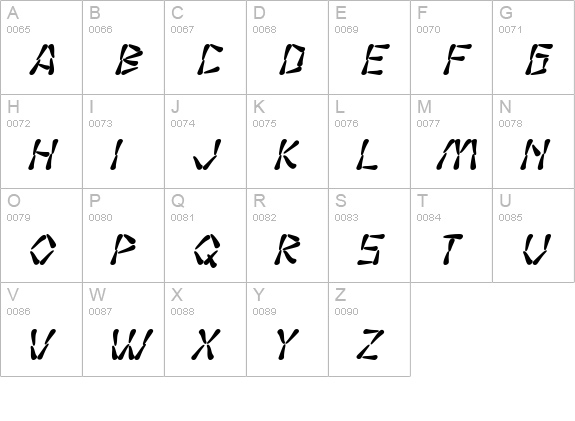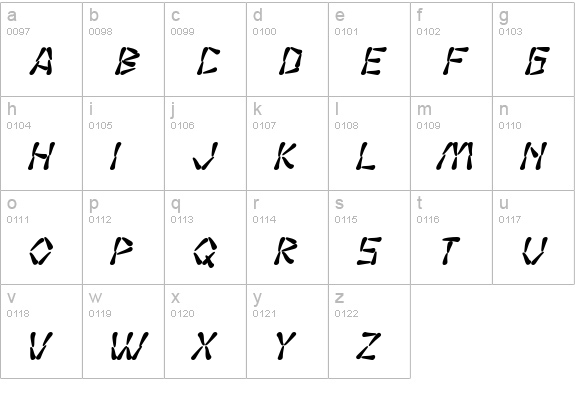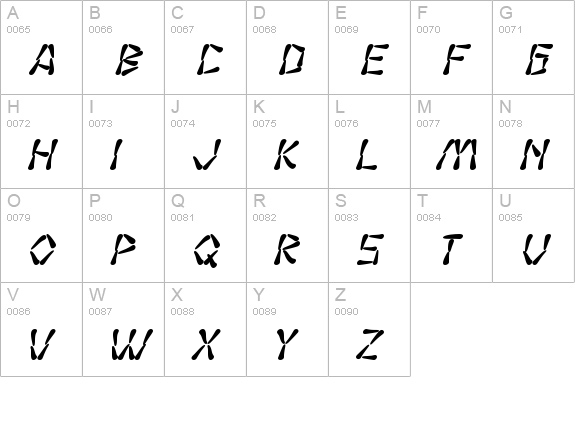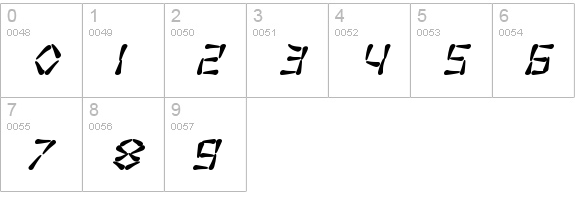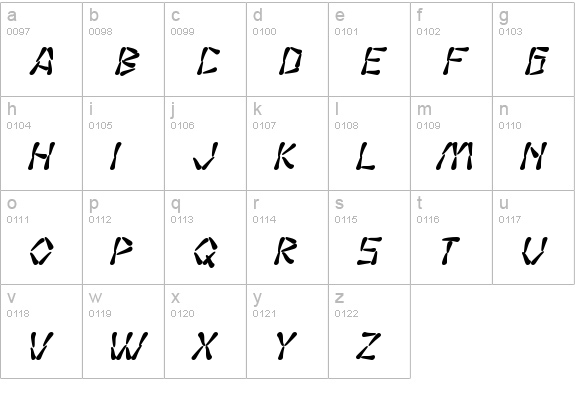
SF Wasabi Bold Italic Font Details
SF Wasabi Bold Italic is a strong, high-contrast, italic variant in the SF typeface family \xE2\x80\x94 well suited to headlines, attention-grabbing titles, and strong calls-to-action.
Introducing the captivating SF Wasabi Bold Italic font, a bold and daring typeface that exudes confidence and modernity. This font is perfect for those who want to make a statement with their designs, whether it be for branding, advertising, or any creative project that requires a touch of edginess. With its striking bold strokes and slanted italics, SF Wasabi Bold Italic commands attention and adds a sense of energy to any composition. Its distinct and unique letterforms are carefully crafted to create a visually impactful experience, making it an ideal choice for headlines, logos, and attention-grabbing titles. But what sets SF Wasabi Bold Italic apart is not just its unrivaled aesthetics; it's also the fact that it is offered to you completely free of charge. Yes, you read that right – this remarkable font is freely available to download at FontsMarket.com, allowing you to effortlessly access and utilize its powerful design potential without any obstacles. Whether you are a professional designer, a student, or simply someone with a passion for typography, SF Wasabi Bold Italic caters to your creative needs by providing a versatile and expressive tool that will elevate your designs to new heights. It enables you to effortlessly communicate your message with style, leaving a lasting impact on your audience. So why wait? Embrace the bold and daring nature of SF Wasabi Bold Italic, and let your designs come to life with its captivating presence. Download this remarkable font for free at FontsMarket.com today and unlock a world of possibilities for your next design endeavor.